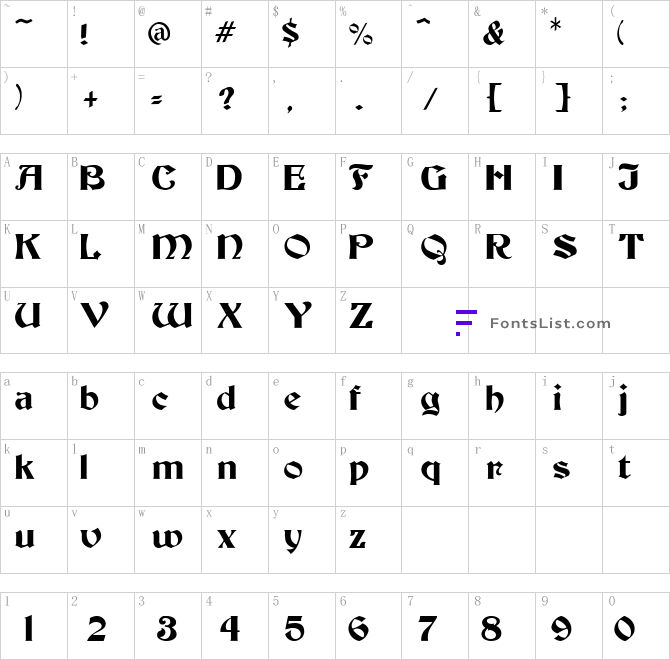
- Font Name:Becker-Medium
Becker-Medium-Medium.ttf is a very beautiful artistic font, Becker-Medium-Medium.ttf is widely used in the design and printing of various books and pictures,Becker-Medium-Medium.ttf has a strong visual impact,Becker-Medium-Medium.ttf is a commonly used font in newspapers, magazines and books, and is used in posters, e-commerce Poster design, store design, logo design, font design and other fields.Becker-Medium-Medium.